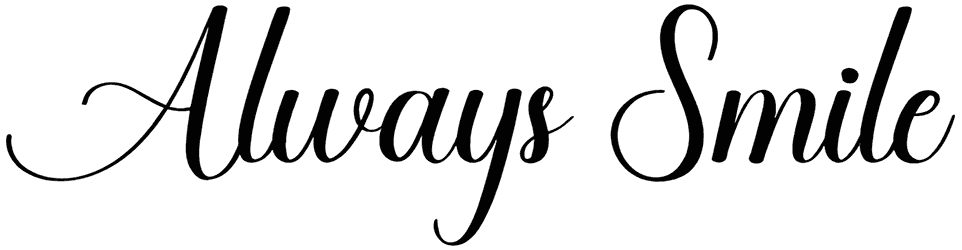
Always Smile Font
In a world dominated by digital communication, Always Smile is a reminder of the power of the written word in the human hand. This calligraphy font stands out in emotional situations and can add sophistication and elegance to everything from business cards to wedding invitations.
With its smooth lines and intricate details, this romantic font will surely leave a lasting impression on anyone who pays attention to it and can introduce your brand to the viewer with a distinct feeling.
Always Smile is an exquisite handwritten font, masterfully designed to become a true favorite. It maintains its classy calligraphic influences while feeling contemporary and fresh. Fall in love with it and bring your projects to the highest levels!